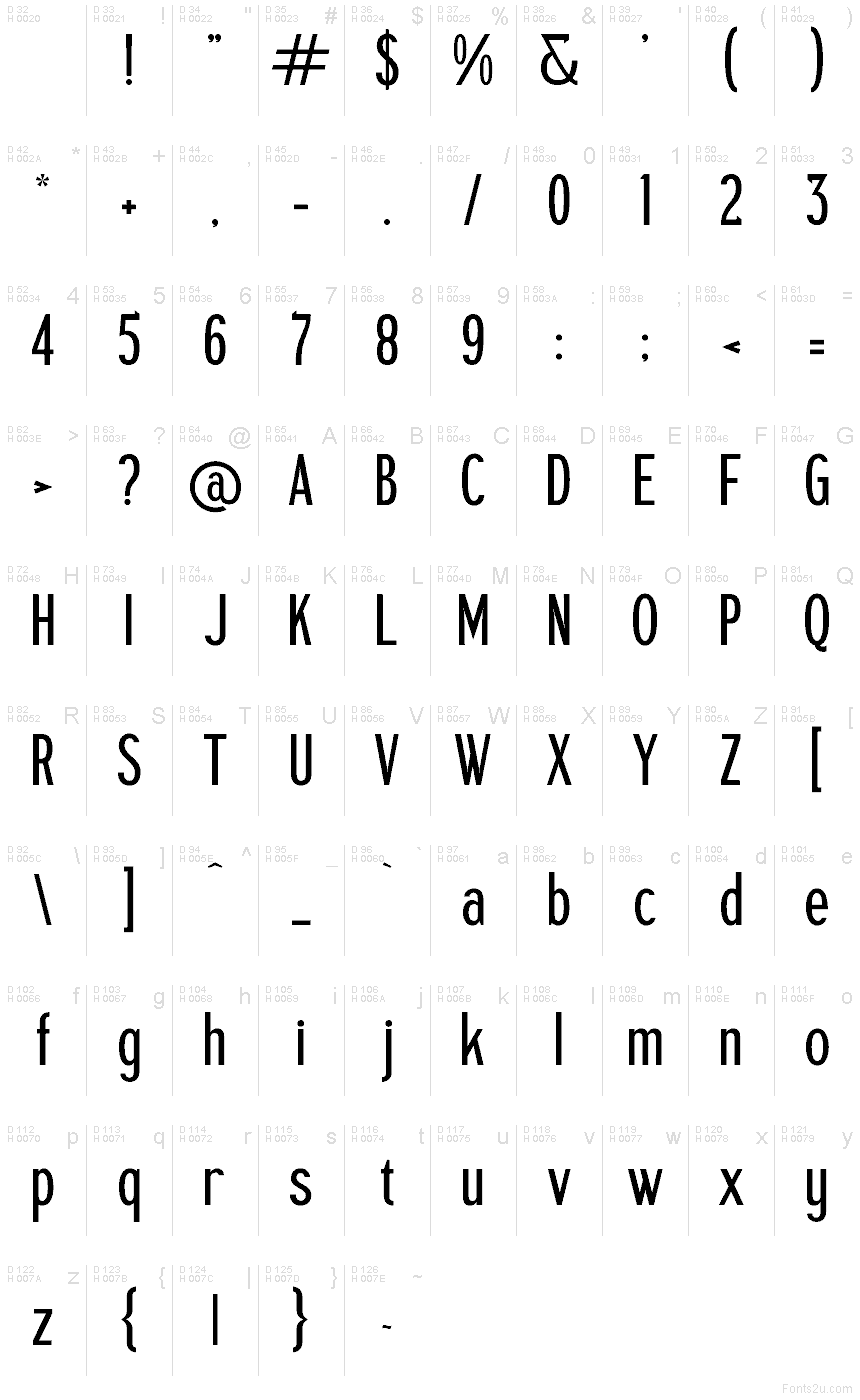
Perls Hearts
Perls Hearts font from Storytype Studio is a condensed sans serif font with clean lines and a minimalist approach. Its geometric influence gives it a modern look without being too overpowering, allowing its characters to appear naturally sophisticated at every turn.